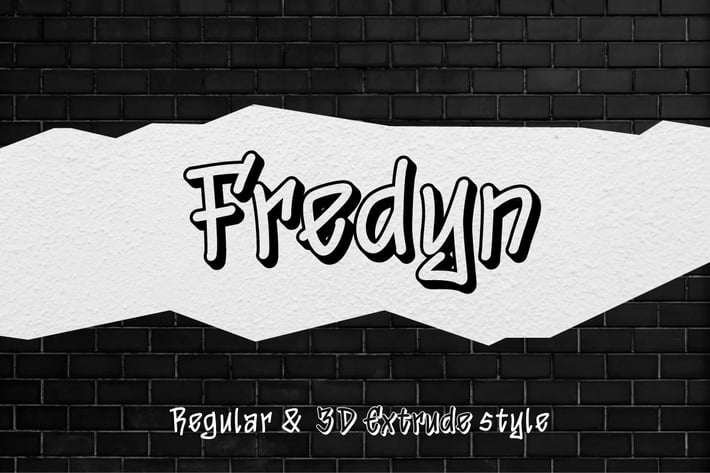
Fredyn - Handwritten Graffiti Font
Hello! looking for a font with street art style? Fredyn is here!
Fredyn can be used in any works such as logo, wall art, apparel branding, team logo and many more.